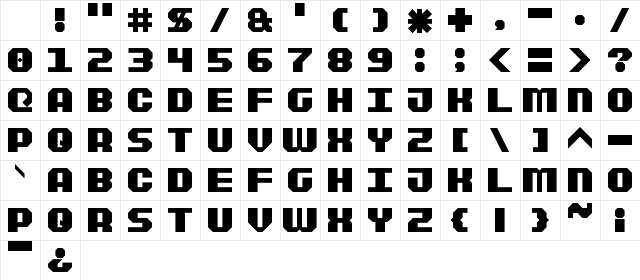
Complete Sportsball Regular glyph index. Displaying only characters natively supported by Sportsball Regular font.
Sportsball brings high-energy athletic personality to the page - its confident, muscular forms are built for impact.
Pro Tip: Use Sportsball in all-caps headlines where its athletic energy can fully express itself. Pair with a solid, simple sans for supporting text.